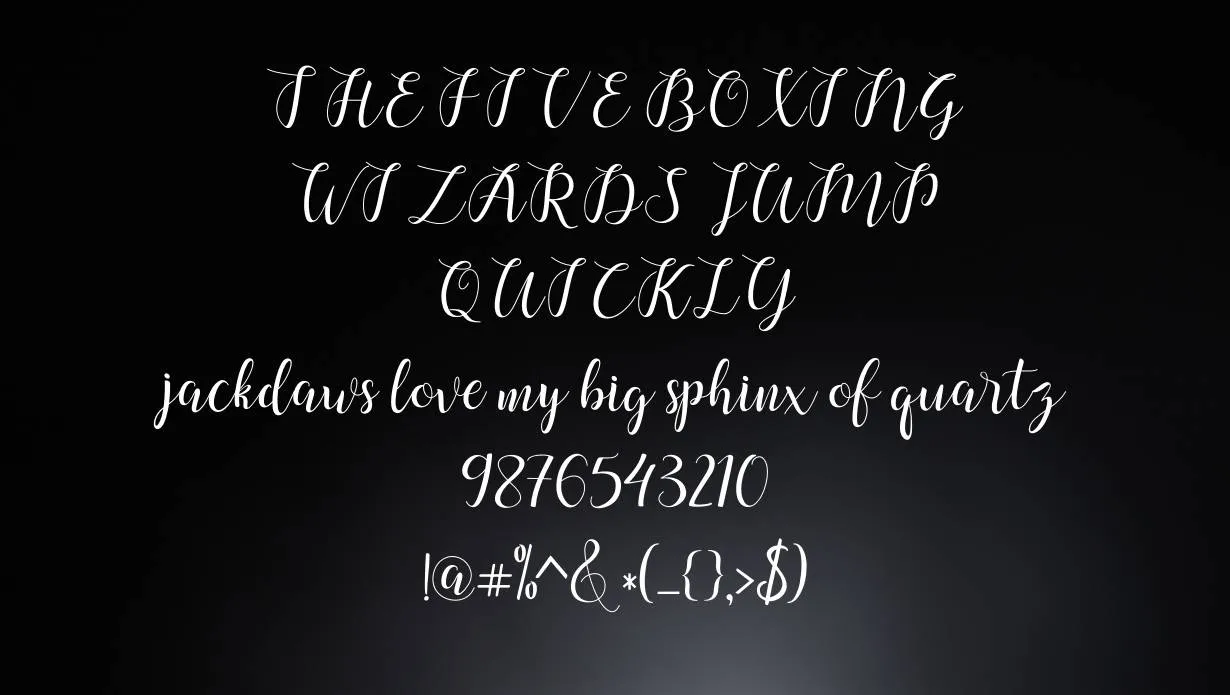
Chalala Font is a decorative font designed by Harold Lohner. It was inspired by the work of early 20th-century typeface designer Rudolph Koch. This Font has a unique, hand-drawn quality that makes it perfect for use in headlines, logos, and other display purposes.
This Font was created in 2006 and is currently available in two weights, Regular and Bold. This font has been downloaded over 100,000 times from Harold Lohner’s website. This font glyph support Latin, Eastern European, and Cyrillic languages.
This font would be perfect for headlines, logos, and other display purposes. Chalala Font is also a great choice for any project that needs a hand-drawn or decorative touch. Thanks to Harold Lohner for sharing this great font with the world!
Chalala Font Family Appearance
| Name | Chalala Font |
| Designer | Harold Lohner |
| Style | Calligraphy |
Family of Chalala Font
- Chalala Regular Font
This font style is perfect for headlines, logos, and other such display purposes.